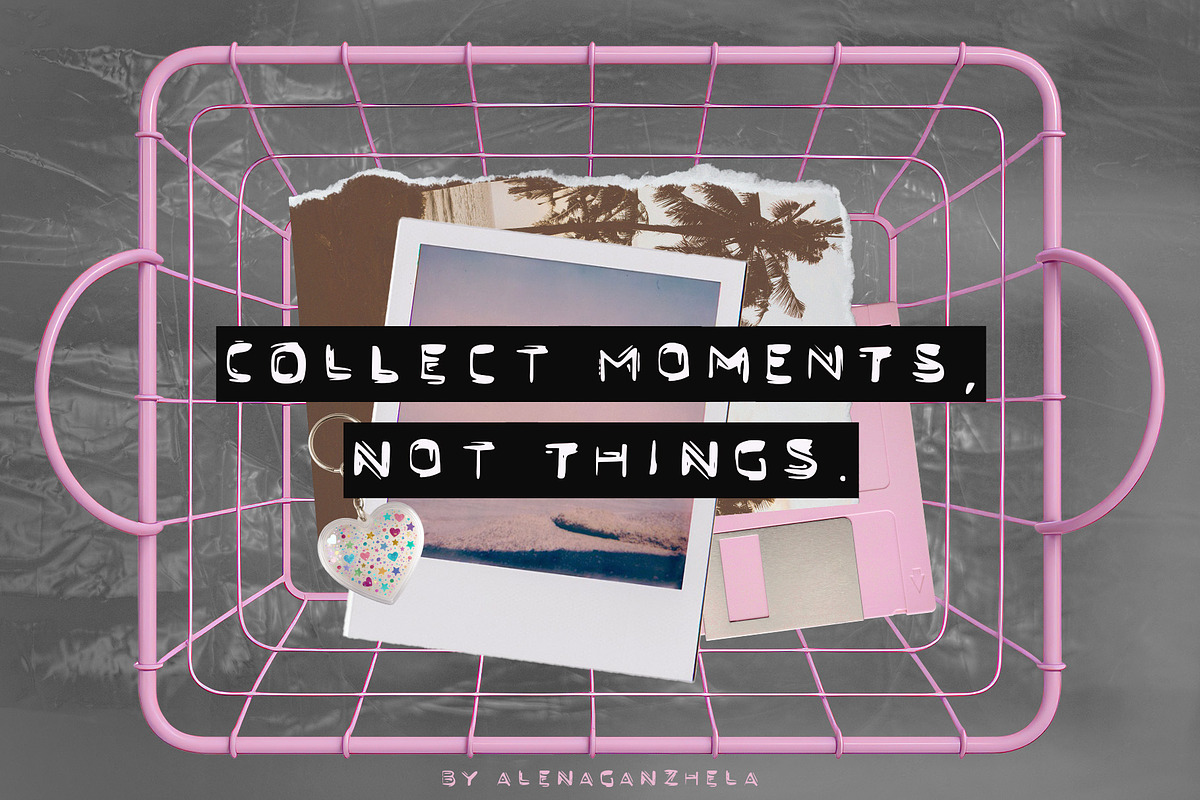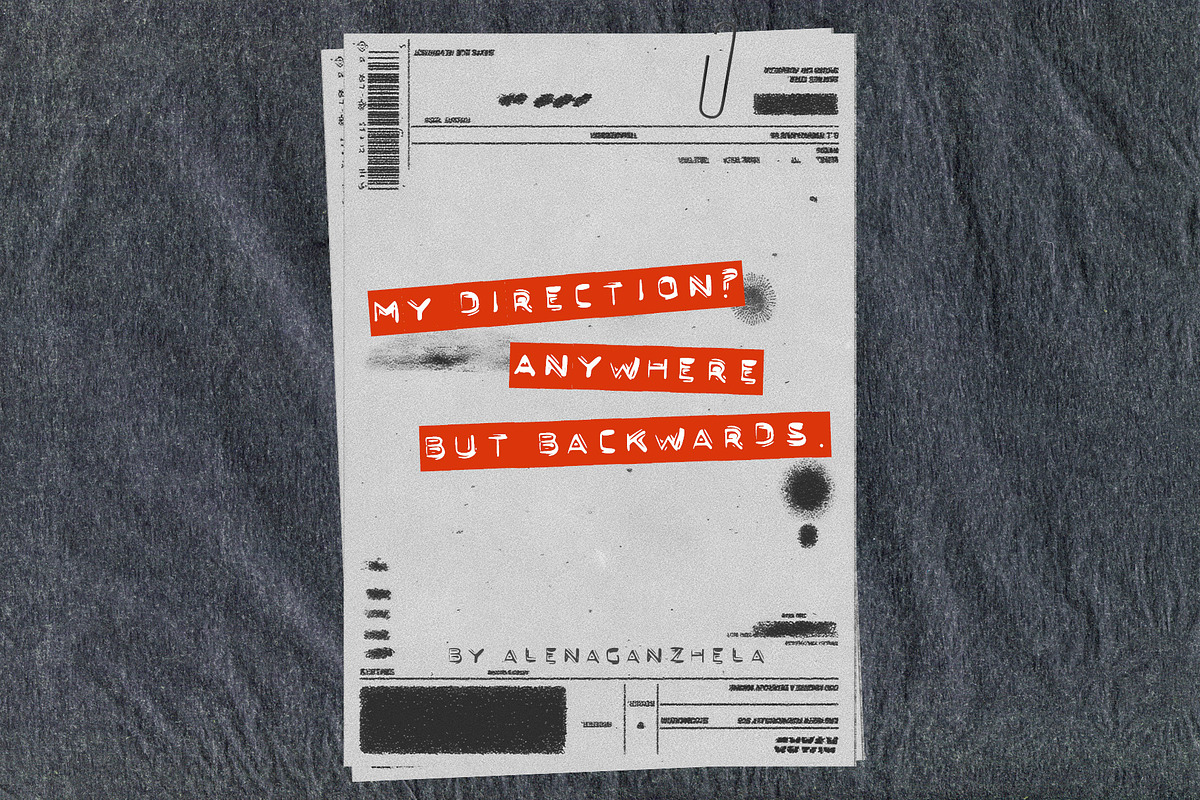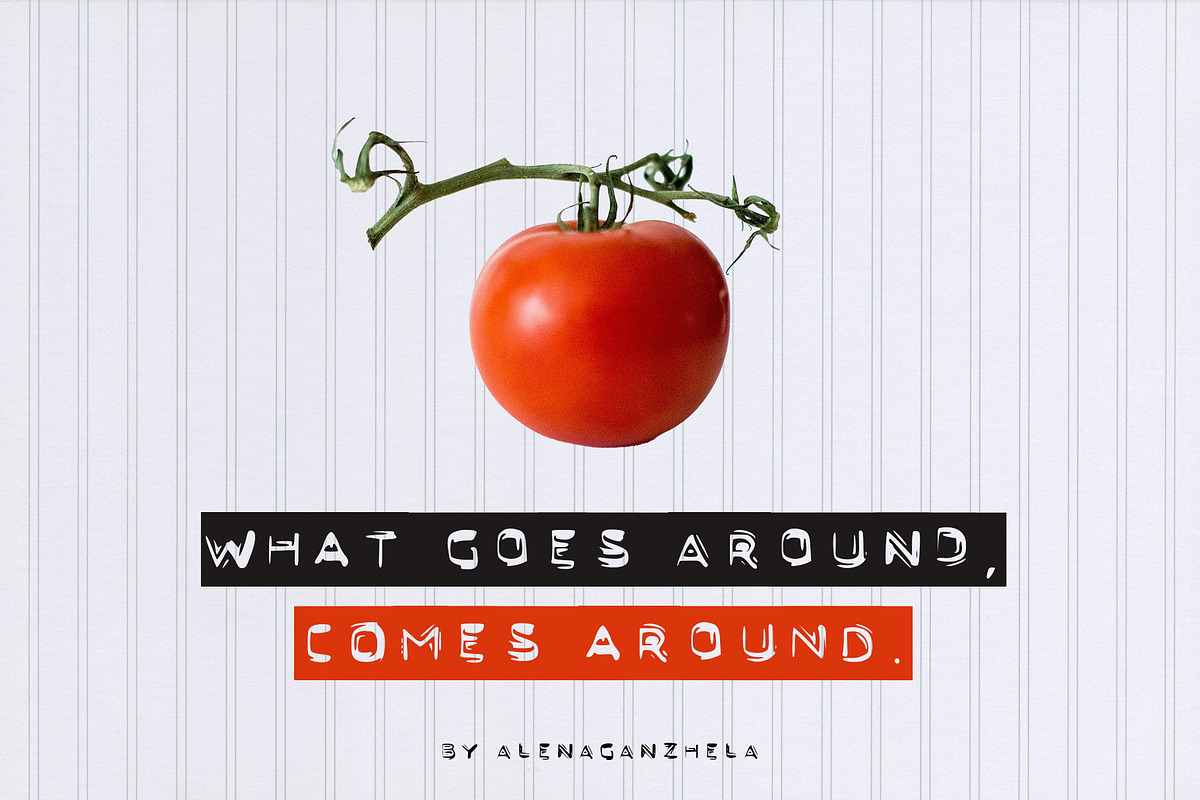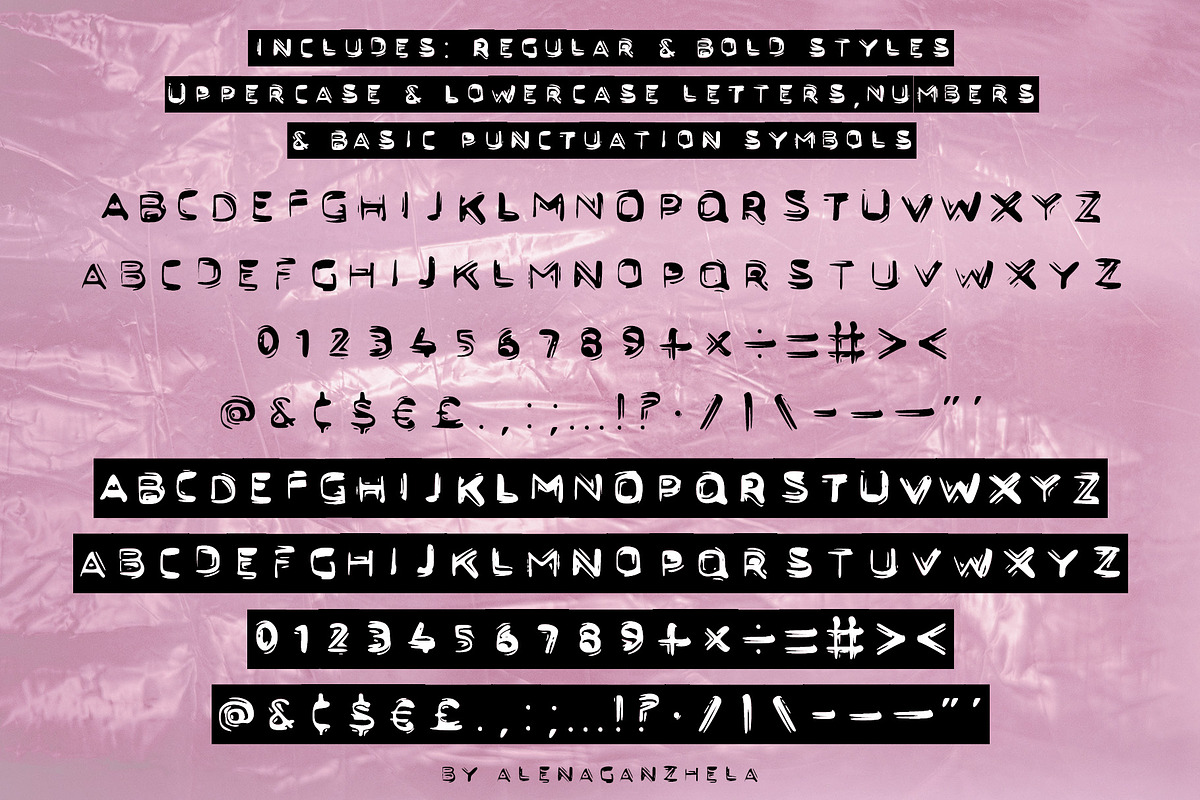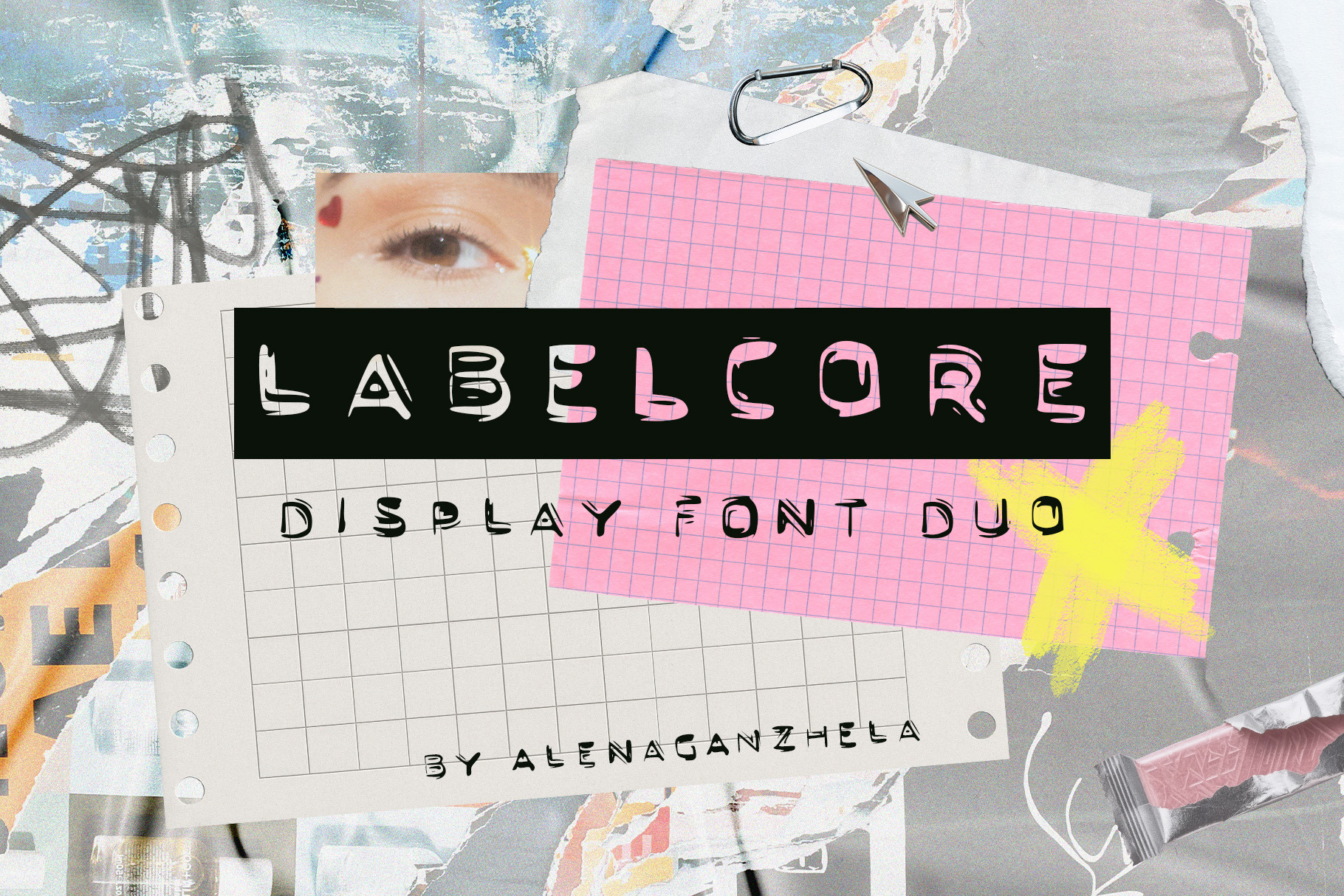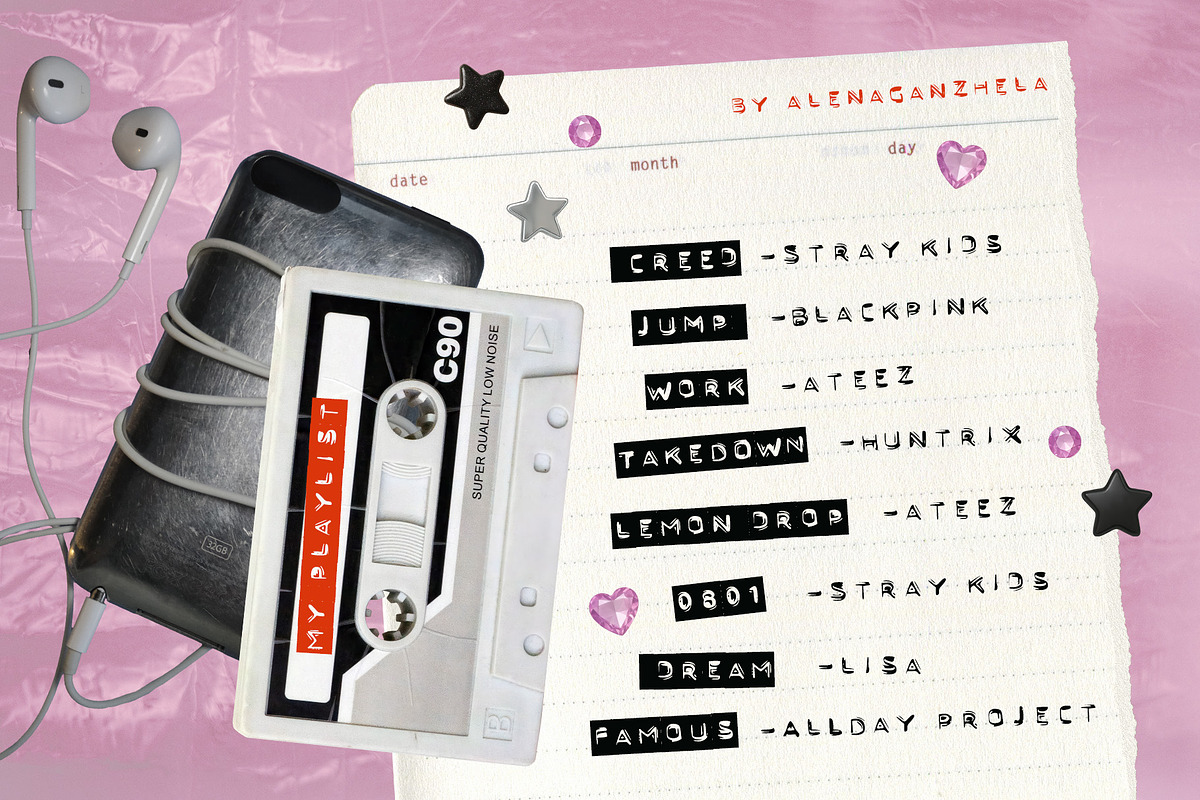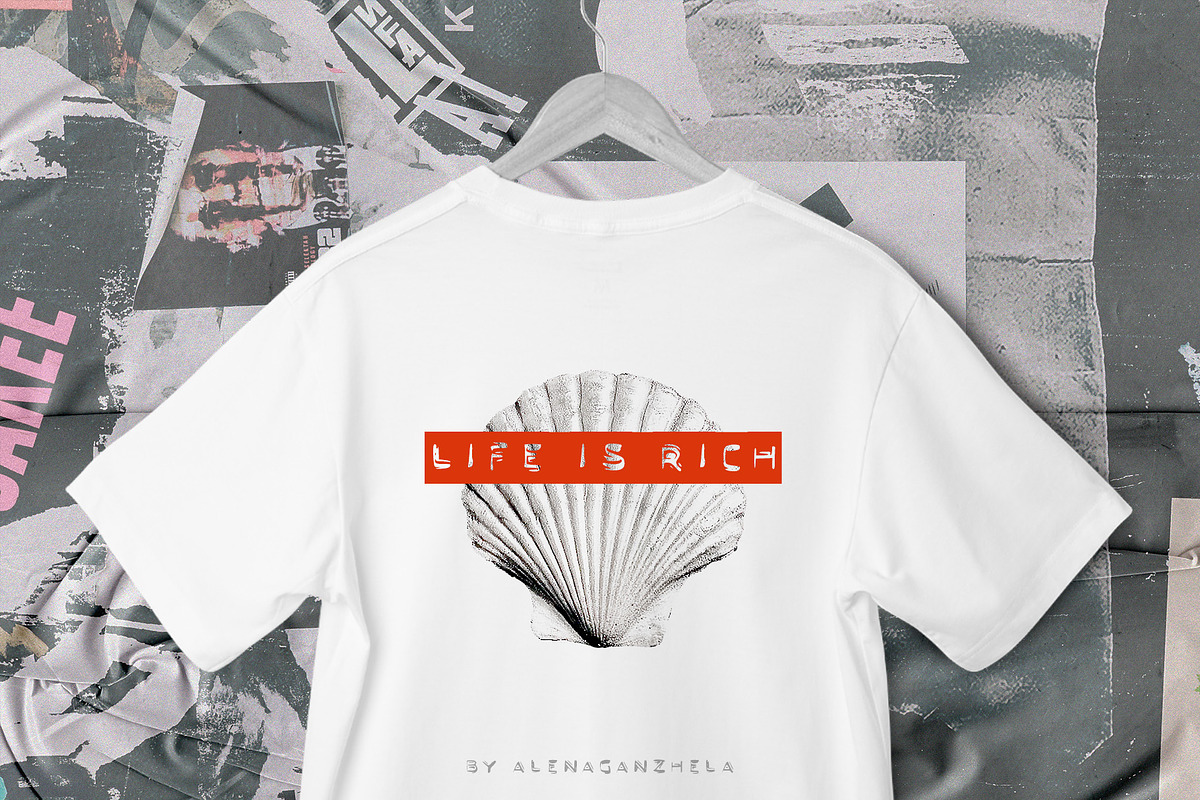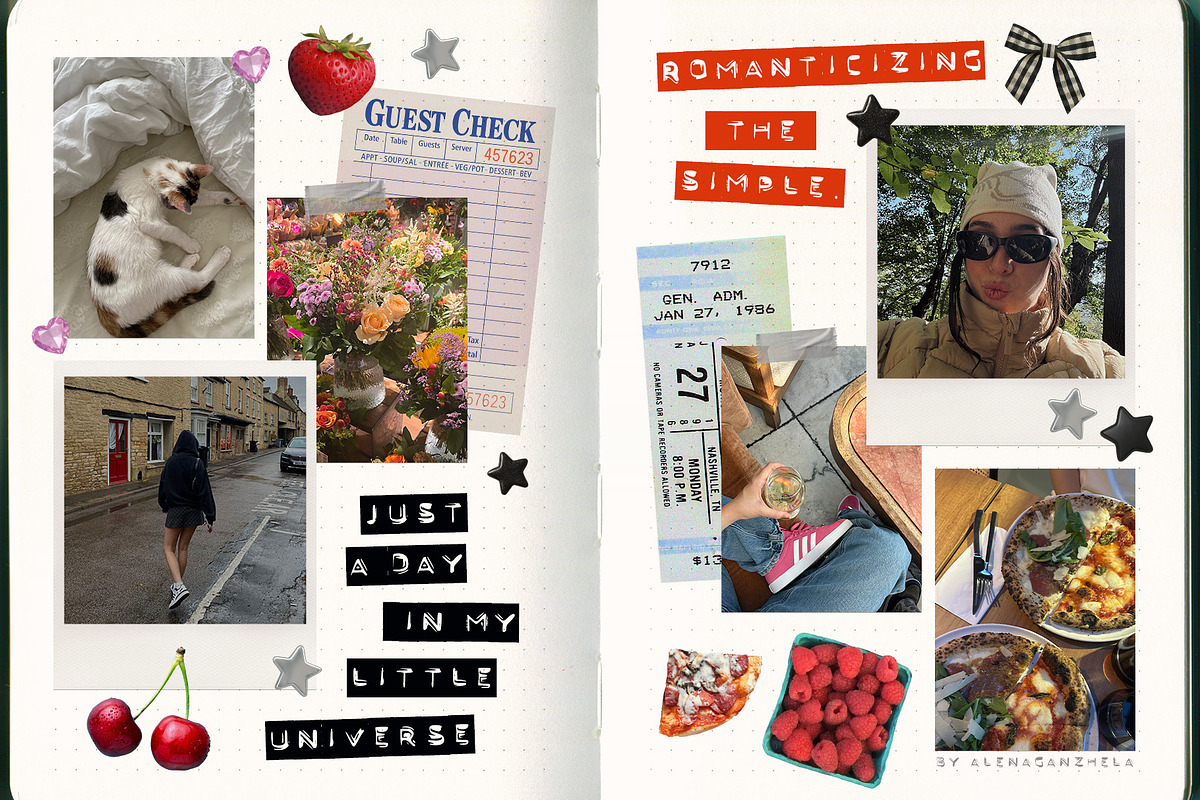
LABELCORE - display font duo
LABELCORE is a bold and sassy font duo inspired by vintage label makers and modern journaling aesthetics. It includes two styles — Regular and Bold, designed to perfectly mix and match for emphasis and attitude.
This font is ideal for digital planners, collage projects, zines, TikTok/Instagram content, stickers, and any creative project that needs a bit of playful rebellion. All caps, clean geometry, with a touch of chaos — it’s your go-to for quirky headers, mixtape playlists, or loud affirmations.